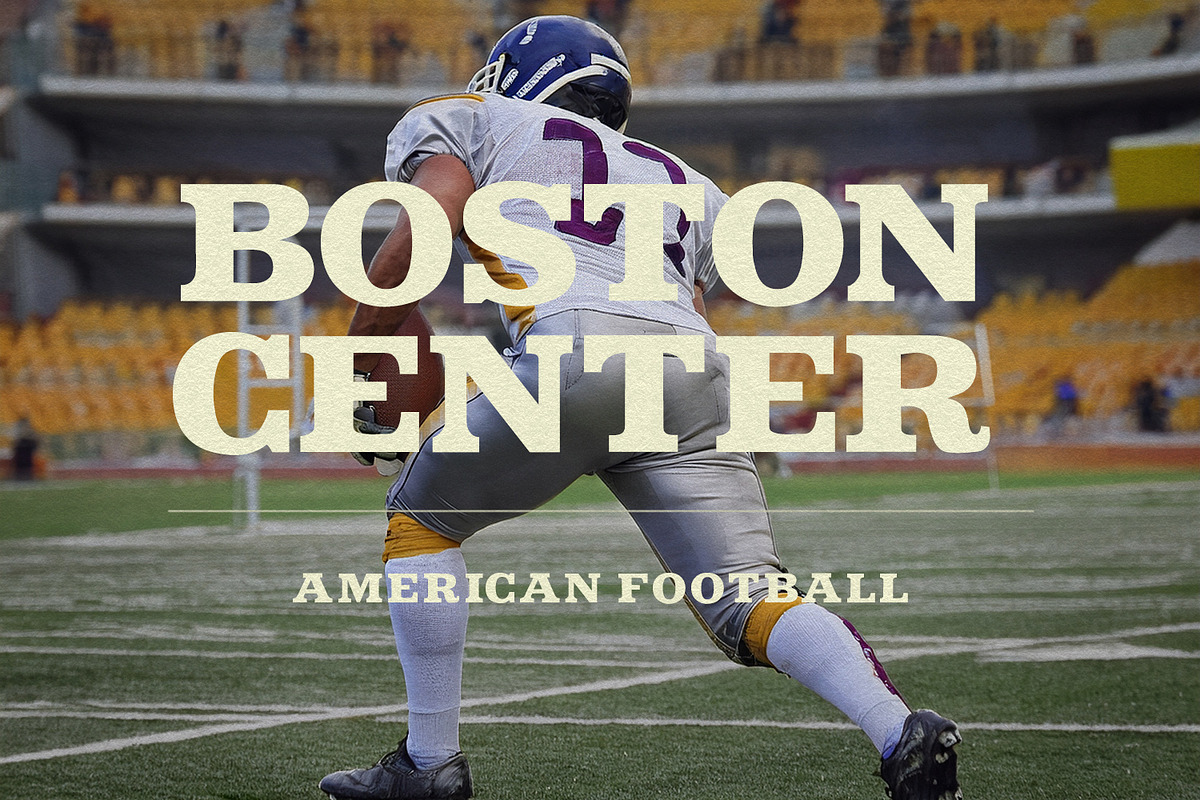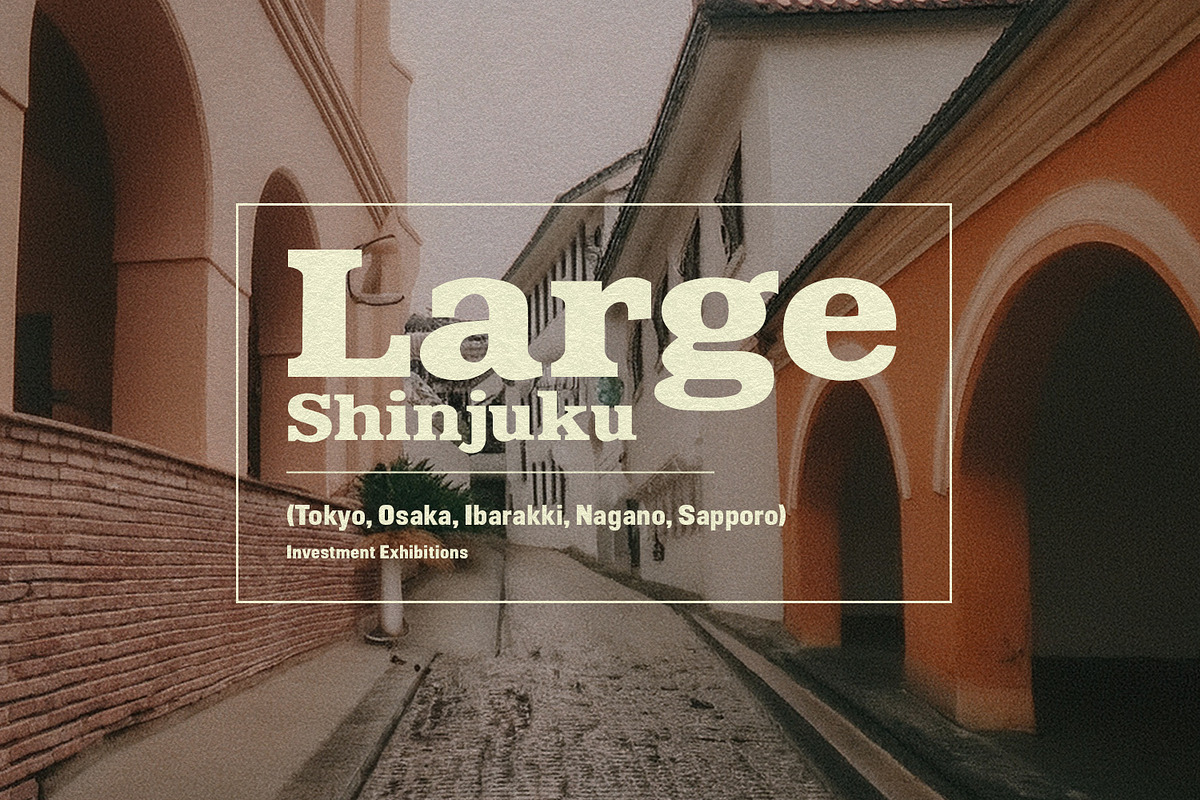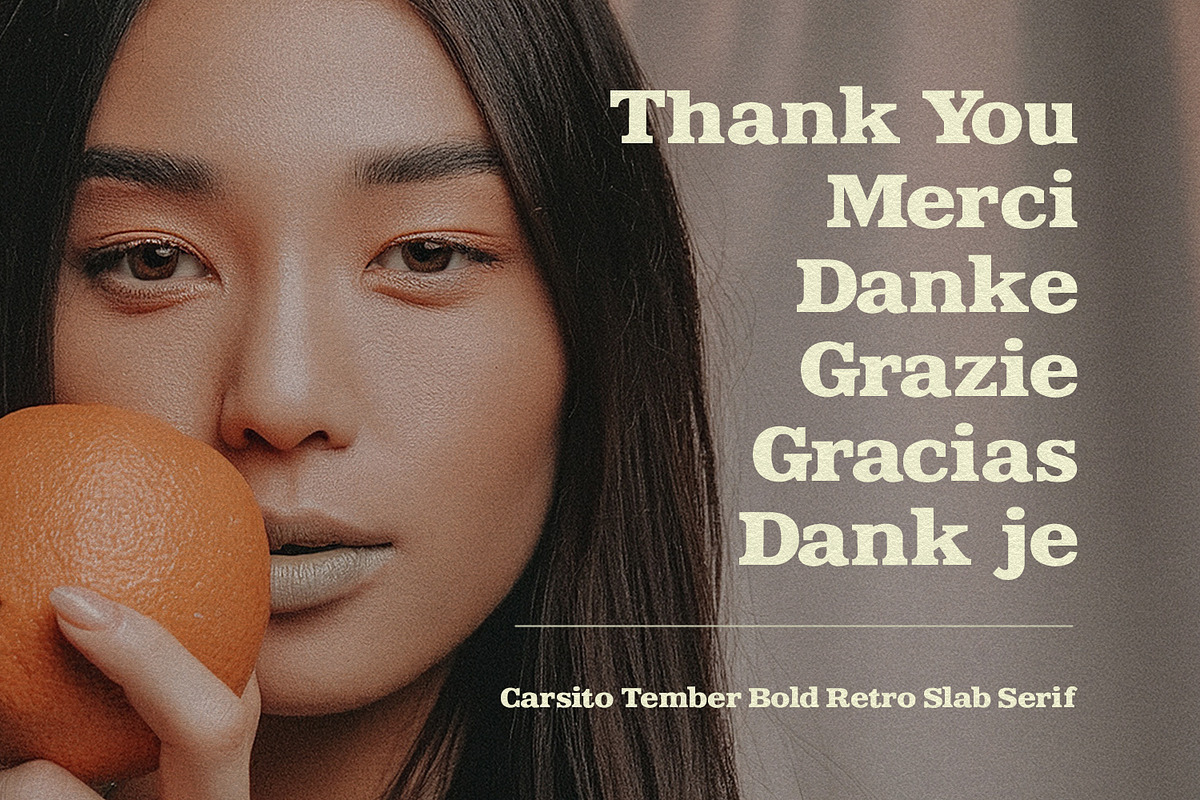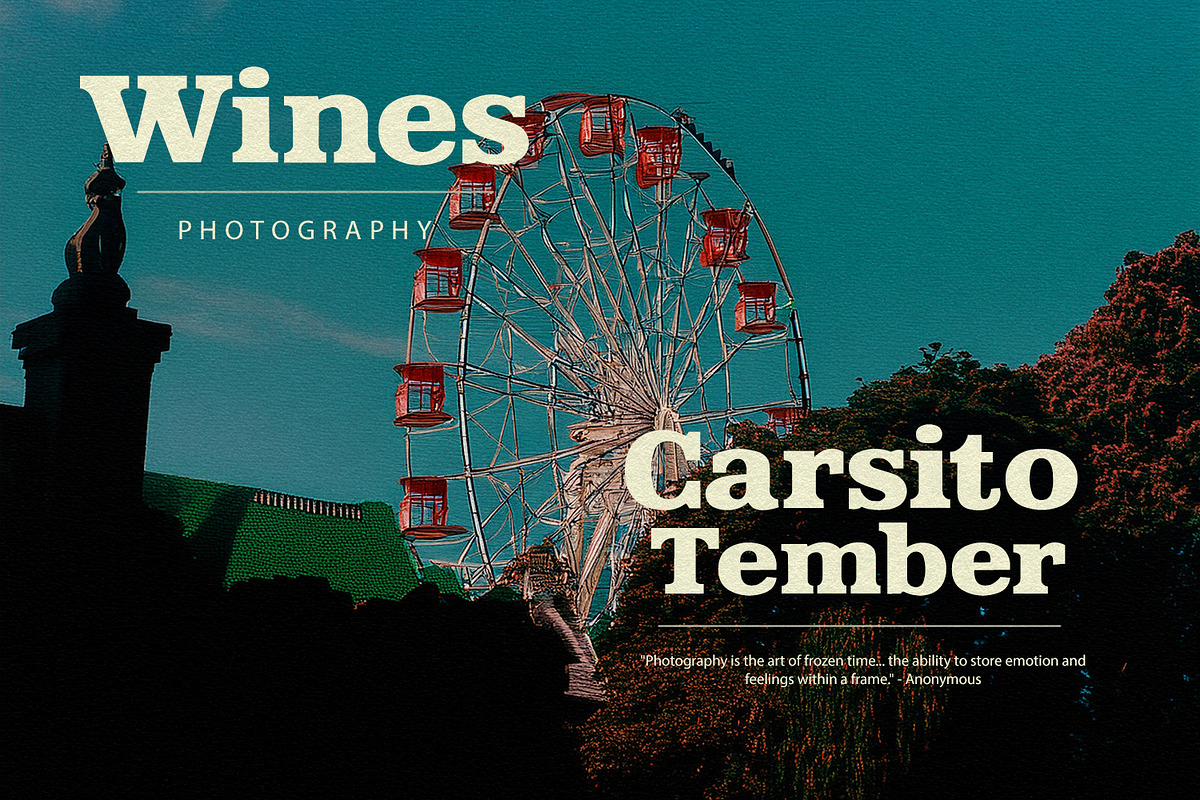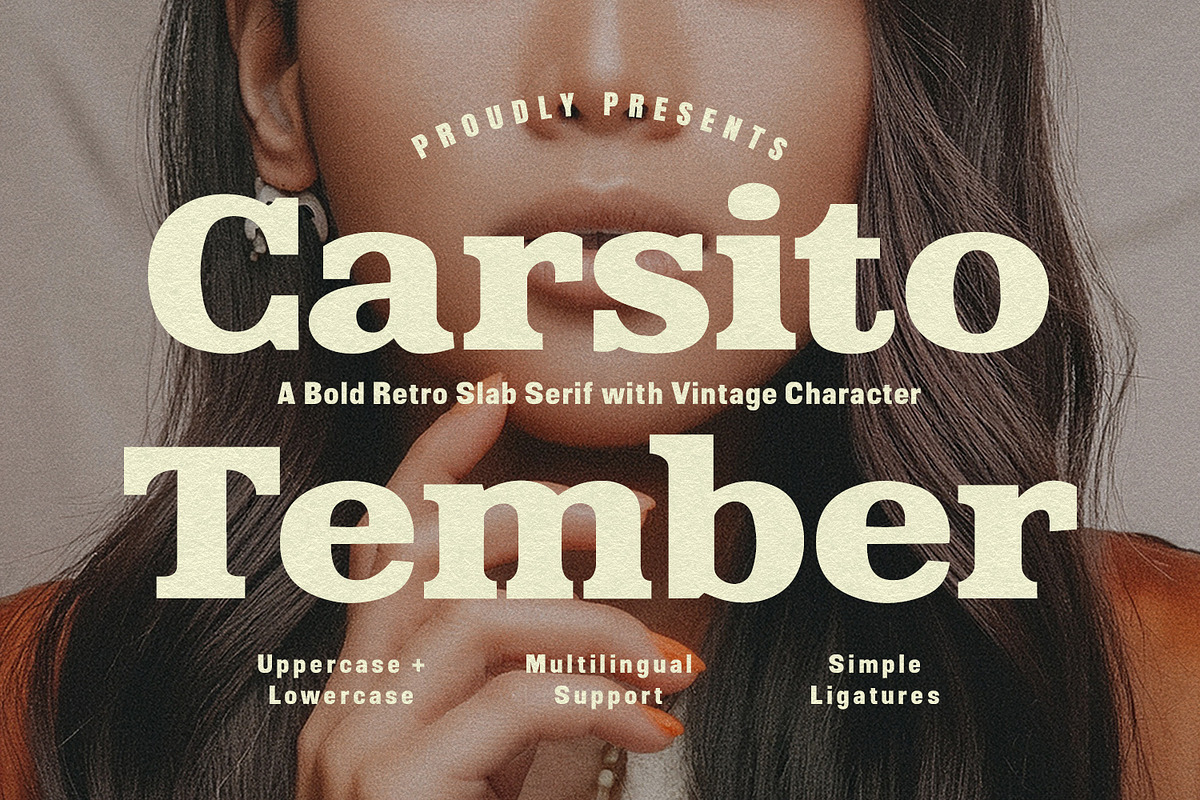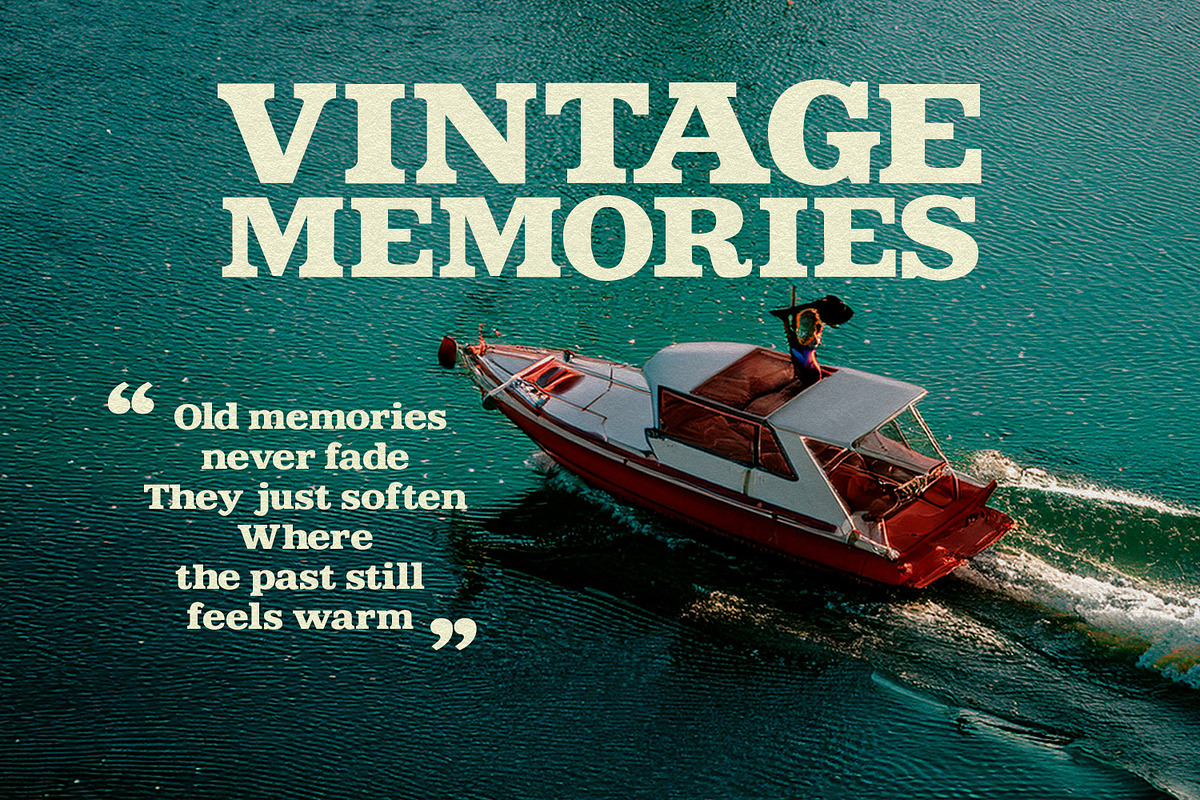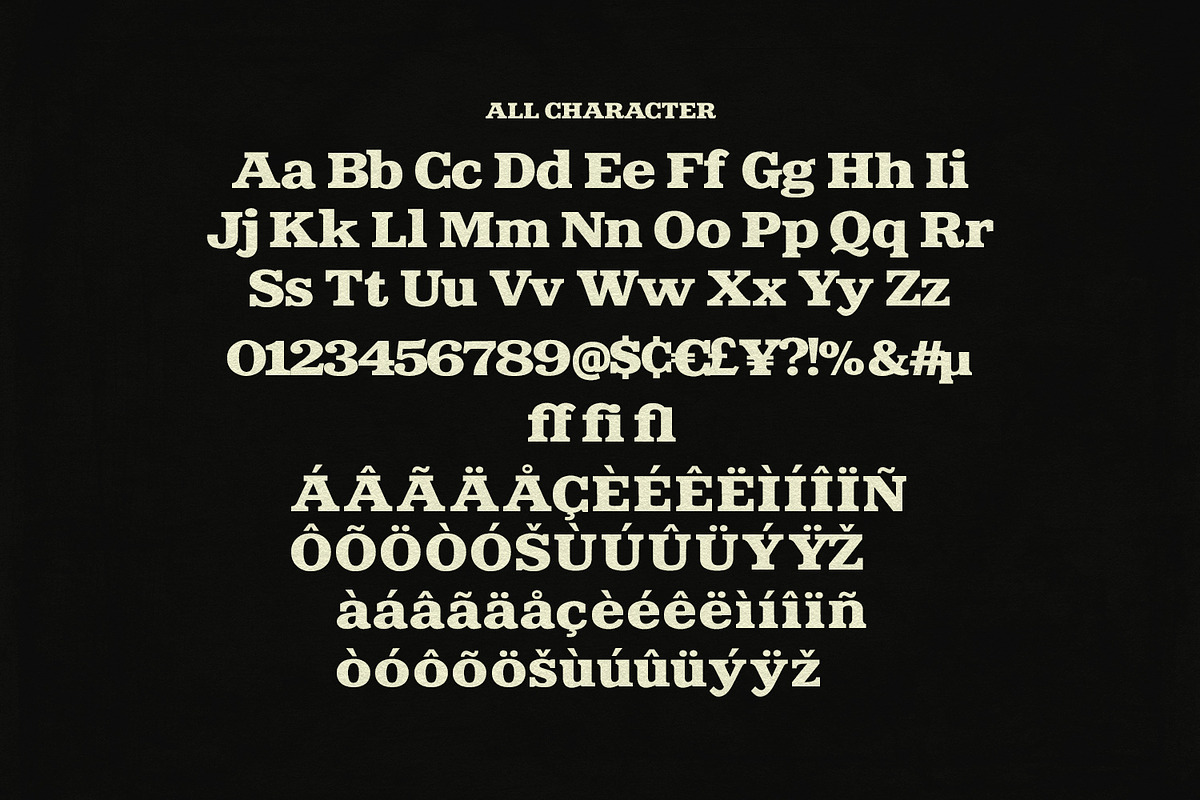
Carsito Tember Bold Retro Slab Serif
Carsito Tember is a powerful and expressive slab serif font designed to bridge the gap between classic vintage aesthetics and modern bold design. Characterized by its heavy weighted strokes and distinct blocky serifs, this typeface exudes a sense of confidence and timelessness.
It is perfectly suited for high-impact displays, including retro-style posters, branding for artisan products, editorial headlines, and athletic-inspired designs. With its inclusive multilingual support, simple ligatures, and both uppercase and lowercase sets, Carsito Tember offers designers a versatile tool to create "vintage memories" with a contemporary edge.
- Ligatures and Alternate